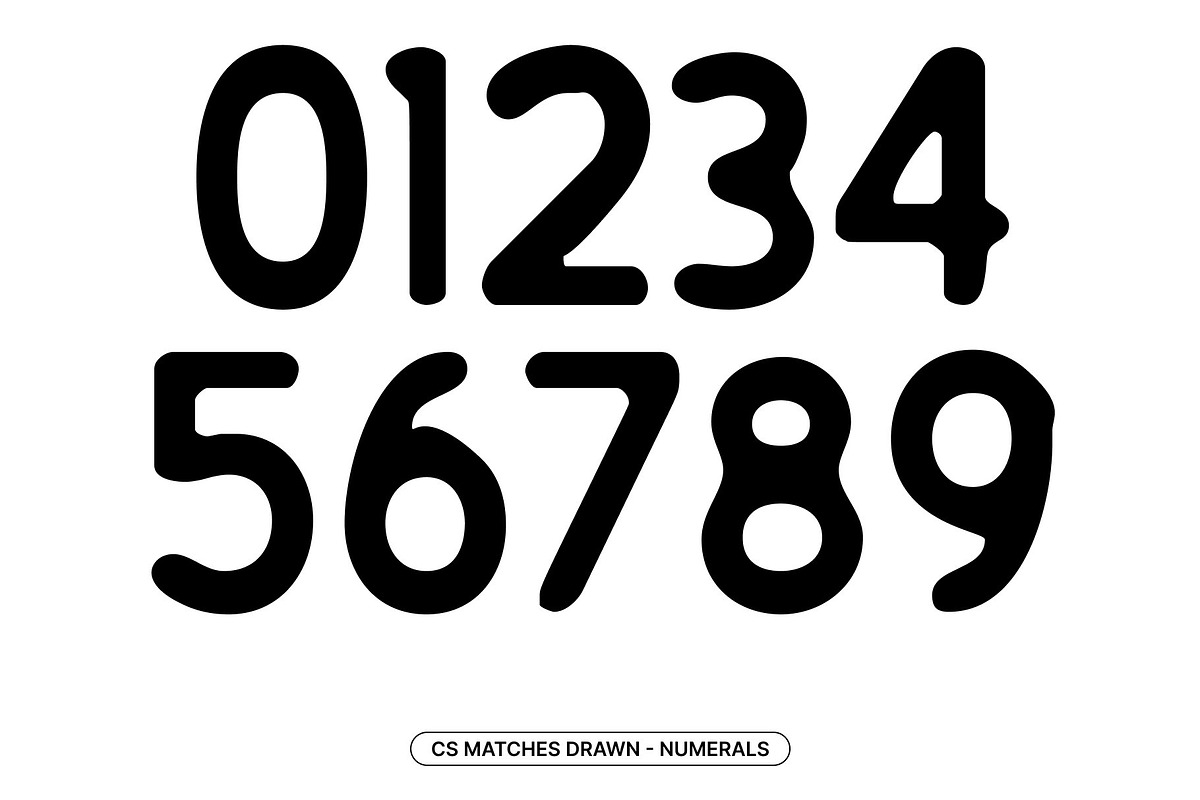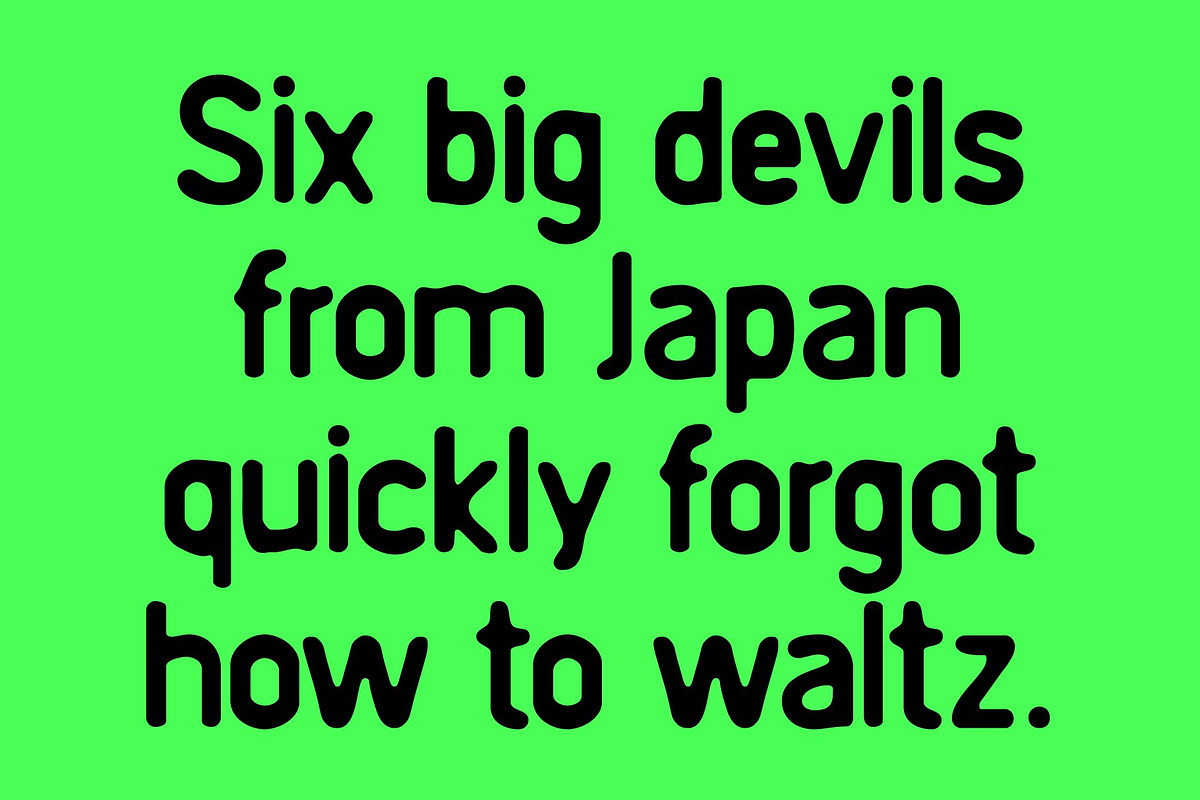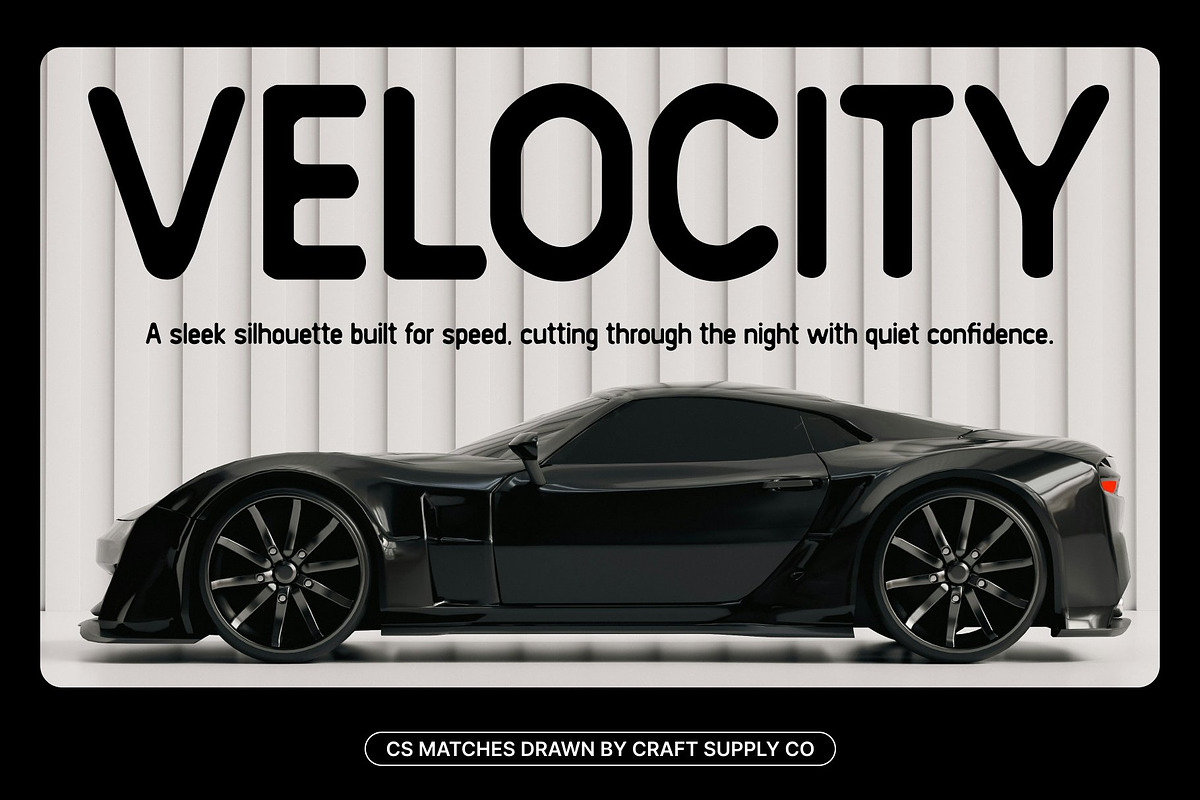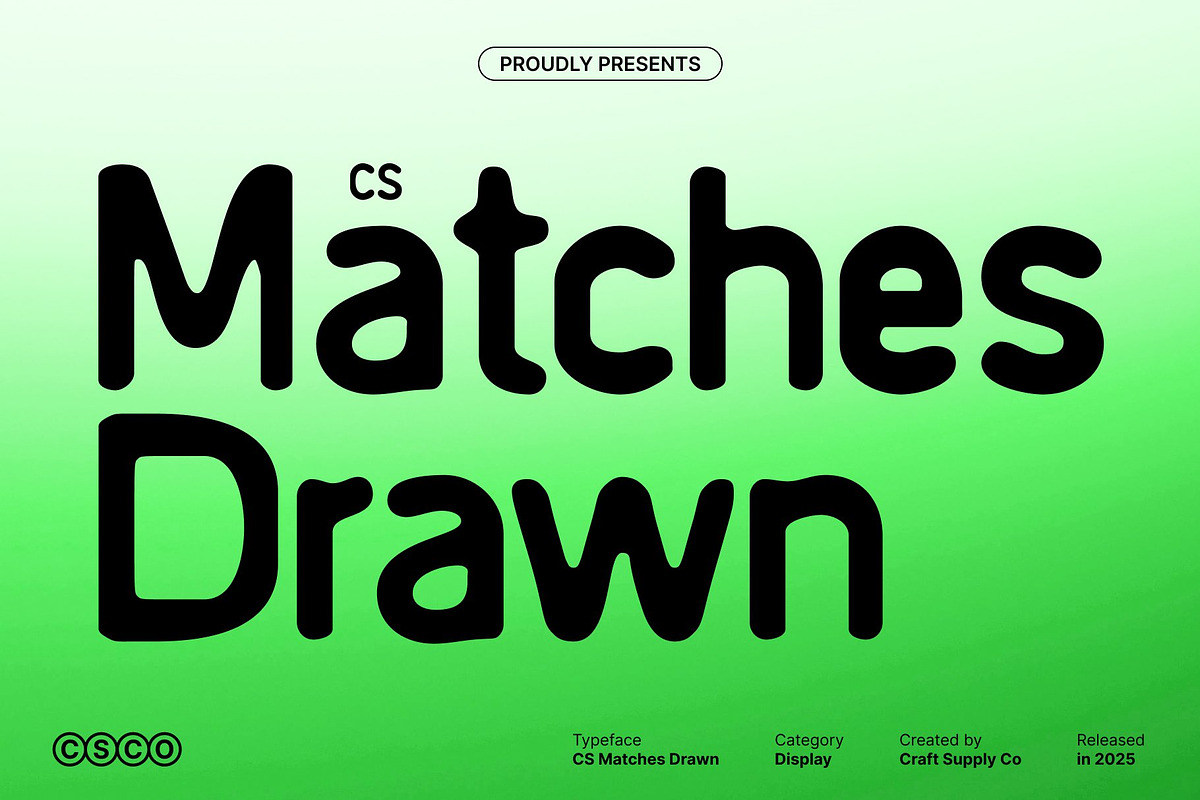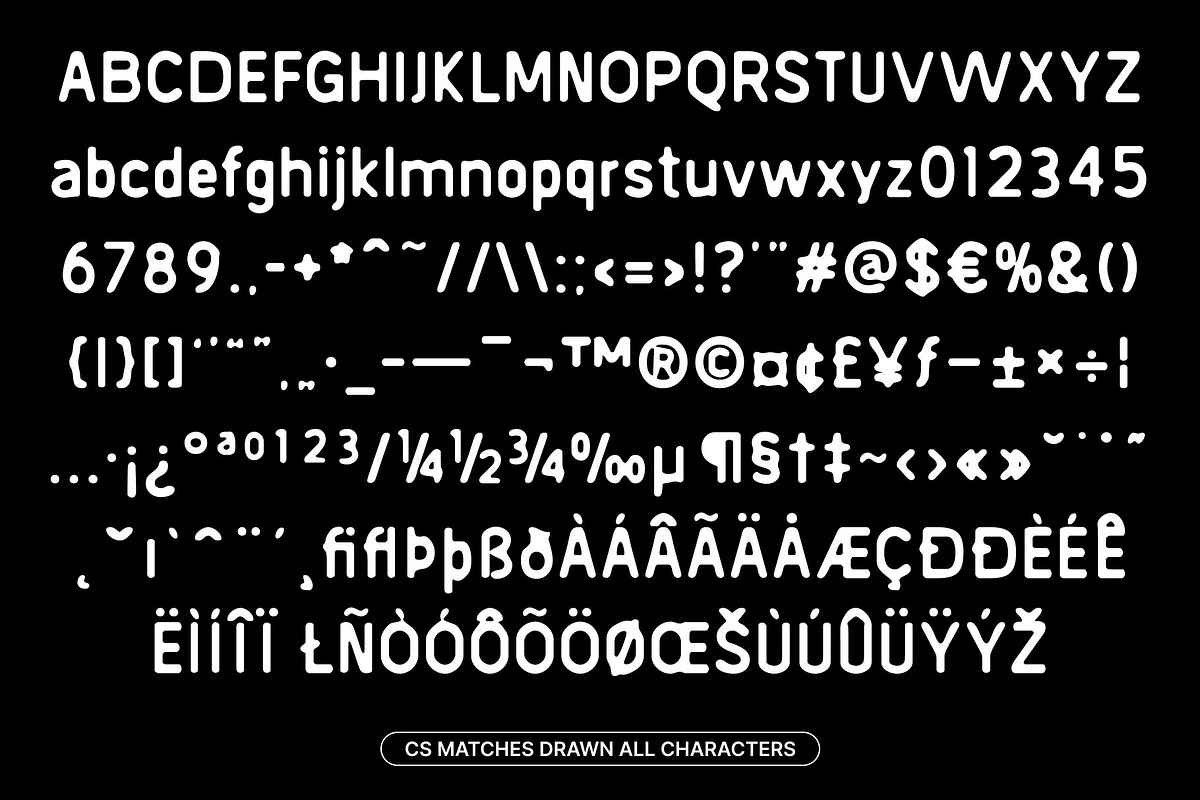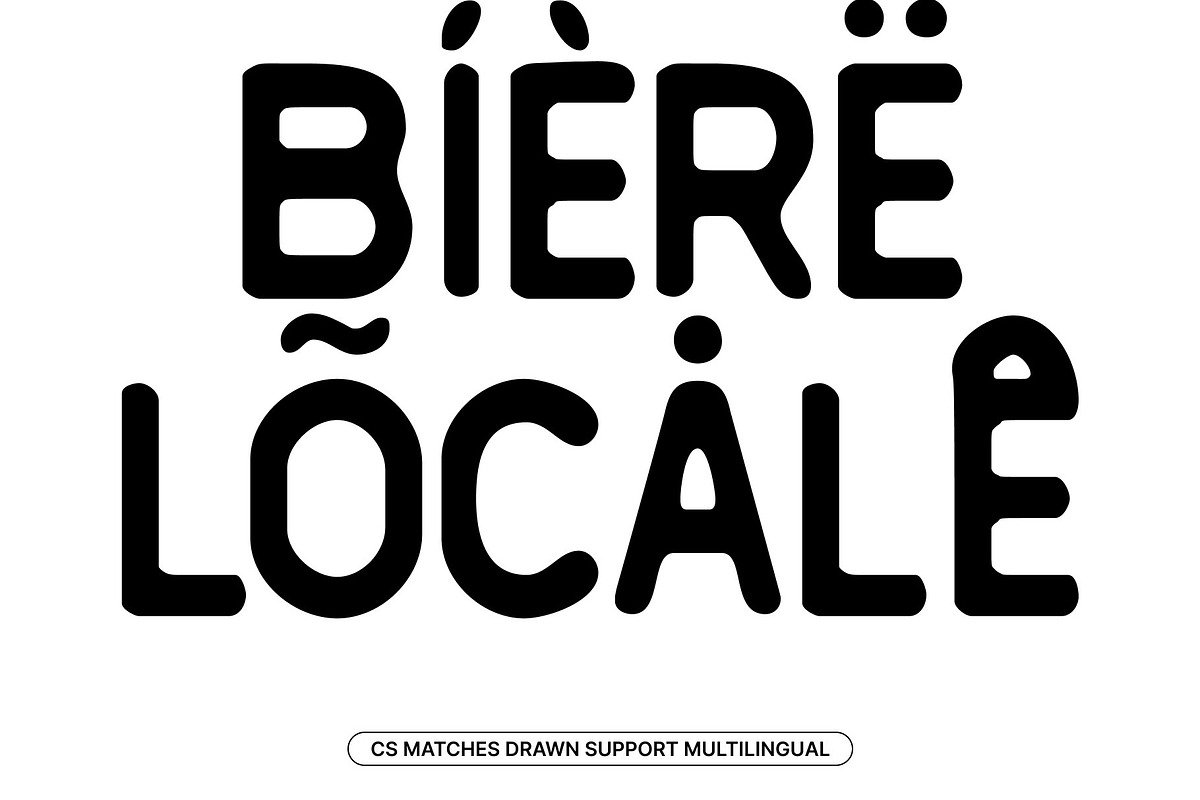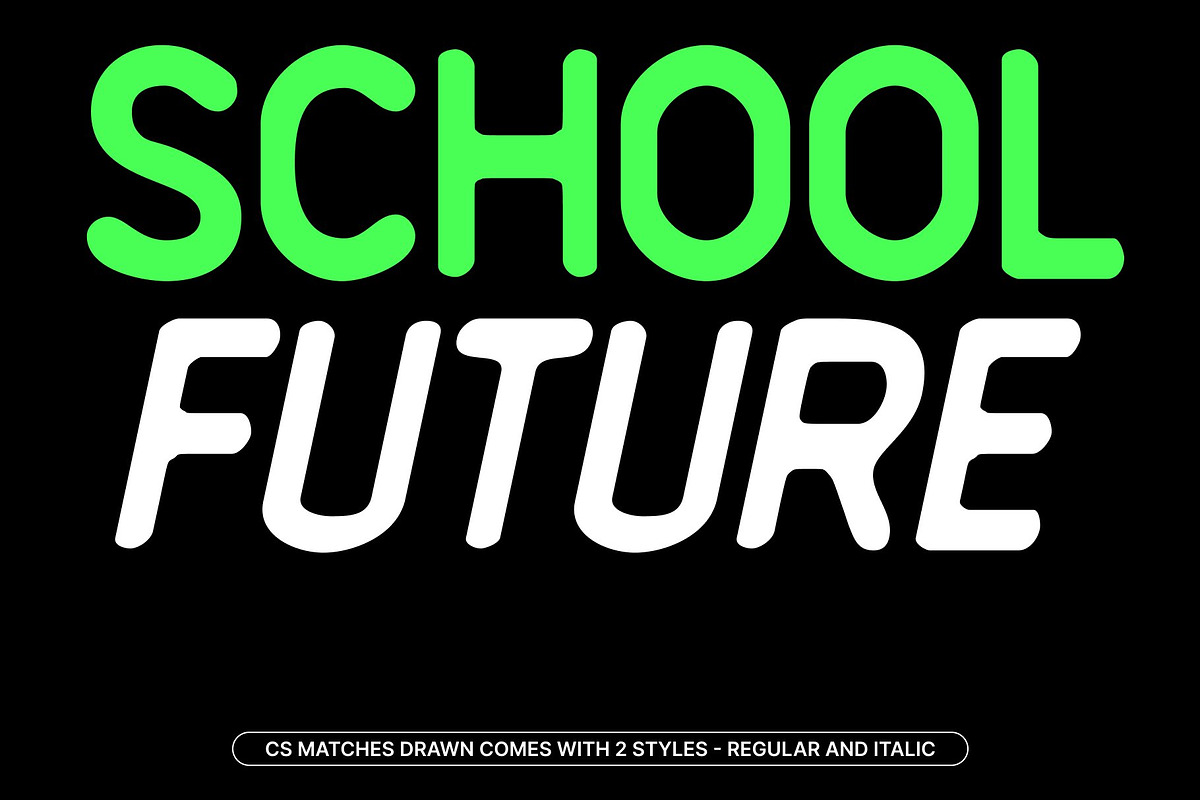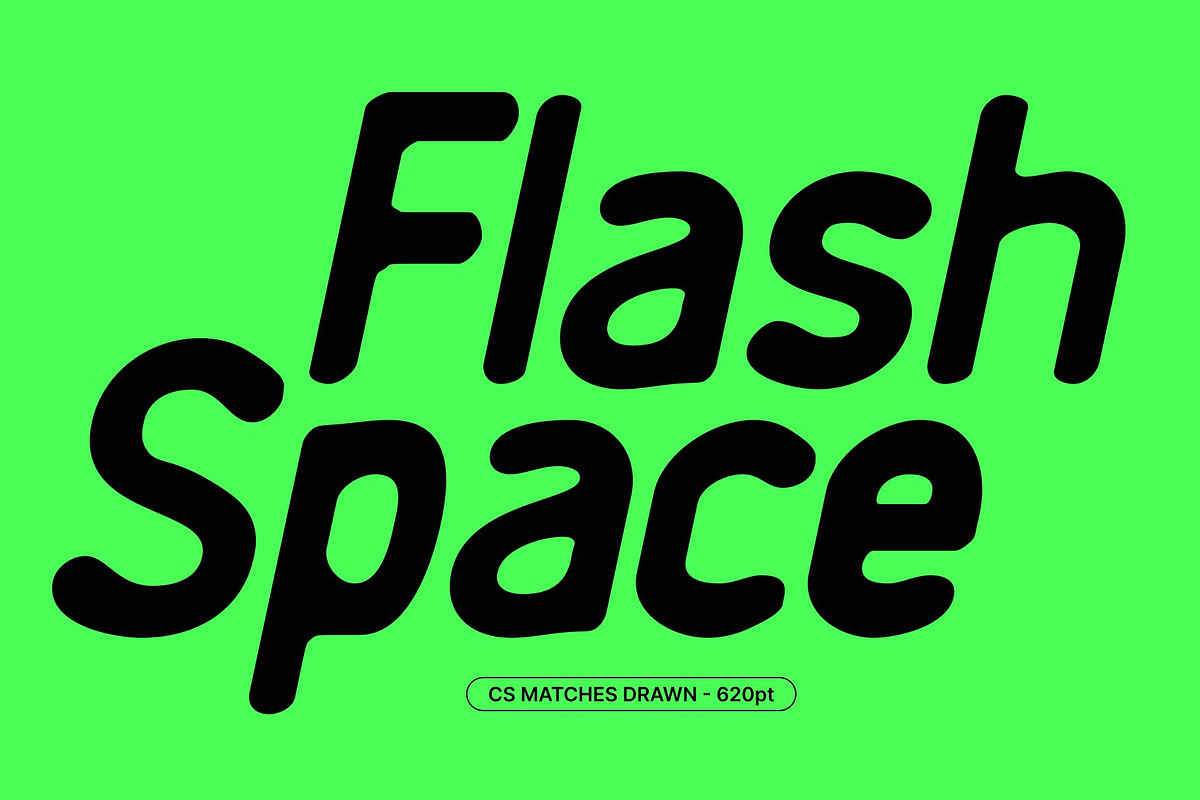
CS Matches Drawn
CS Matches Drawn – Sleek Modernity with Professional Precision
Modern Sans Serif with Sharp Elegance This is a modern sans serif font defined by slim strokes and sharp, angular lines. Its clean construction projects professionalism and confidence, while the drawn effect introduces subtle texture that prevents the design from feeling cold or mechanical. The result is a typeface that feels sleek, contemporary, and confidently refined.
Slim Structure with Refined Drawn Detail The font’s slender proportions and precise geometry create a polished, structured appearance. Enhanced with a hand-drawn texture, each letter gains a slightly organic quality that adds depth and uniqueness to its sharp form. This balance between precision and imperfection makes the font visually engaging while maintaining excellent readability.
Professional Strength with Modern Character This font delivers a strong visual presence without appearing rigid. Its sharp edges communicate clarity and authority, while the drawn nuances soften the overall tone, giving it a modern, human-centered feel. This combination allows the font to perform equally well in bold headlines and refined typographic systems.
Perfect for Editorials, Branding, and Digital Projects Designed for versatility, this font excels in editorial layouts, corporate branding, digital interfaces, and contemporary marketing materials. Its sleek structure, modern clarity, and distinctive drawn texture ensure every project communicates professionalism, precision, and a forward-thinking visual identity.